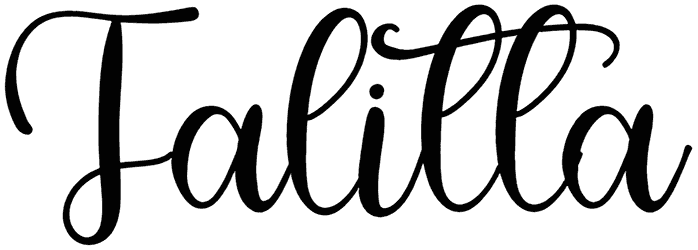
Talitta Font
There are so many fonts to choose from, but if you want to give your artwork a dynamic look, then we suggest you give Talitta a try. This calligraphy font is a piece of work that steals the audience’s eyes from itself.